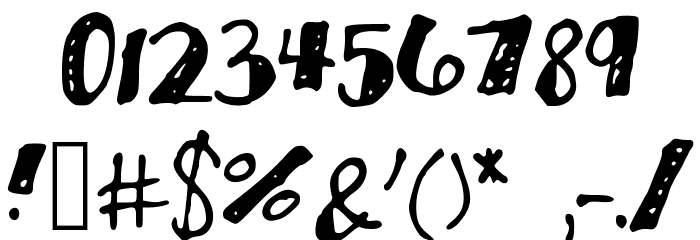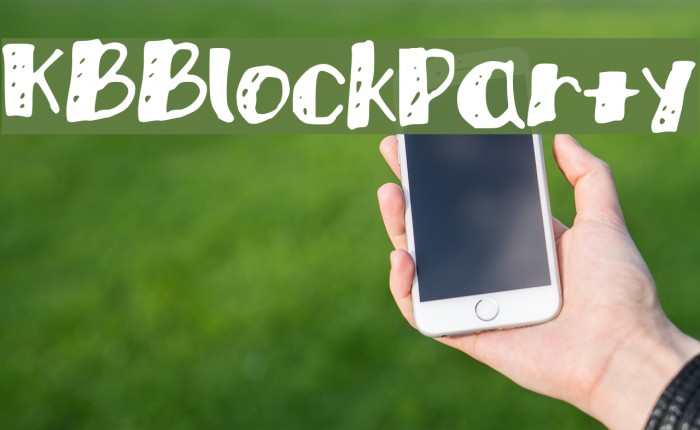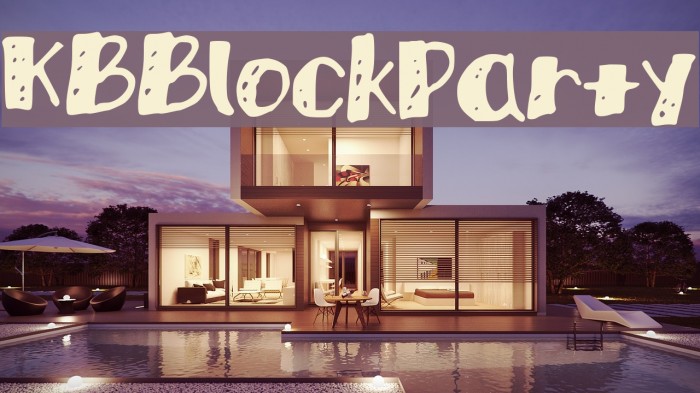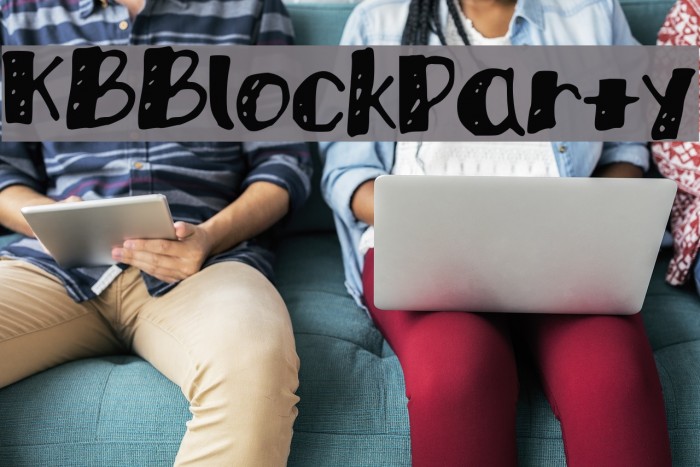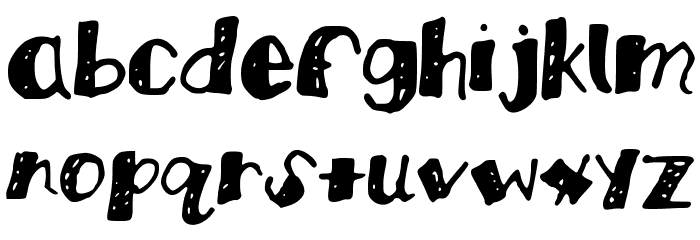
KBBlockParty Font
KBBlockParty Description
This playful and bold font features a hand-drawn, whimsical style with a lively and energetic feel. The characters are irregular and slightly tilted, giving them a dynamic and informal appearance. The uppercase and lowercase letters are distinct, with a mix of rounded and angular edges. The numbers and special characters maintain the same playful aesthetic, making the font versatile for creative projects. The overall look is reminiscent of a fun, party-like atmosphere, suitable for designs that aim to capture attention and convey a sense of joy and spontaneity.
| Overall Style | Playful, Whimsical |
| Proposed Projects | Ideal for children's books, party invitations, playful branding, and creative posters. |